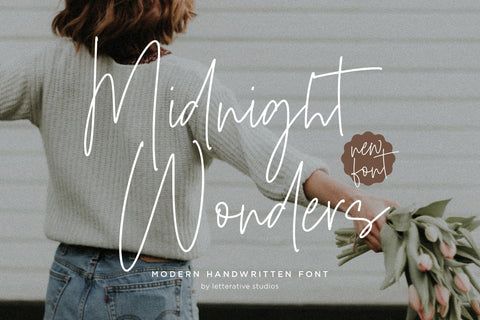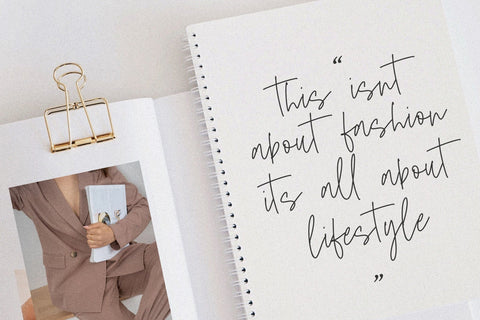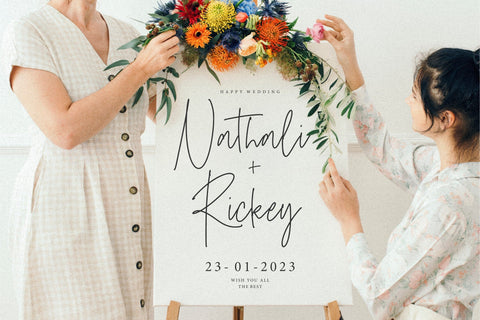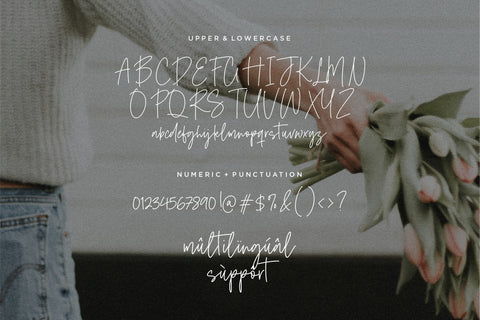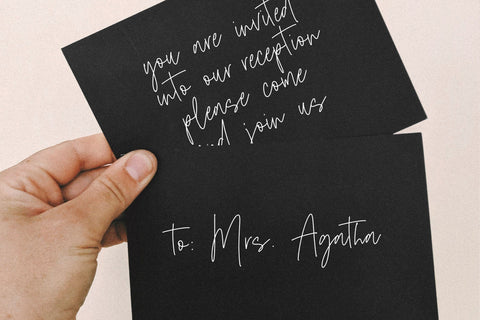
Midnight Wonders Modern Handwritten Font
Introducing by Letterative Studio : Midnight Wonders Font
Midnight Wonders is a Modern Handwritten Font
Midnight Wonders is a dazzling script font. This font is neatly crafted and highly detailed. Whatever the topic, this font will be a wonderful asset to your font library, as it has the potential to enhance any creation.
Midnight Wonders also multilingual support